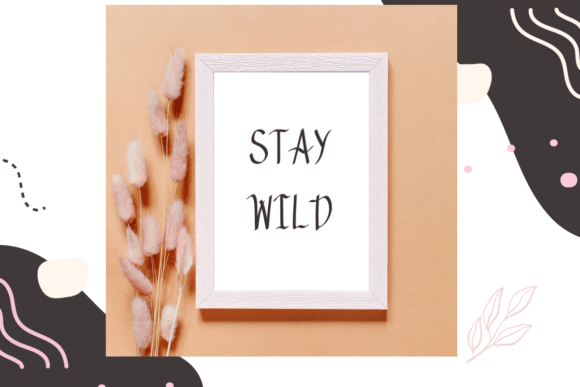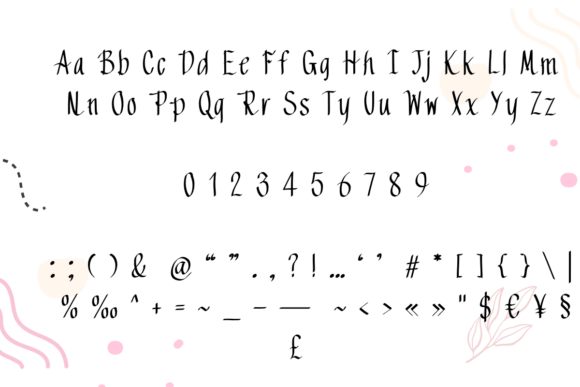
Introduction to Gaceful Pen Font
Have you ever sat down with a cup of coffee, a blank canvas, and a spark of creativity, only to find the perfect font to bring your vision to life? That’s exactly what happened when I discovered the Gaceful Pen Font – a charming and neat handwritten font that’s perfect for all your creative projects.
As a designer, I know how crucial a high-quality font can be to elevate a project from good to great. That’s why I’m excited to share this valuable design resource with you. The Gaceful Pen Font is ideal for social media posts, digital planners, crafting projects, and more, and it works seamlessly with popular design applications like Procreate and Adobe programs.
Key Features of Gaceful Pen Font
- High-quality design resource with a unique, hand-drawn aesthetic, perfect for creative projects.
Honest Review: Gaceful Pen Font
As a designer, I’m always on the lookout for high-quality design resources that can elevate my creative projects. Recently, I had the chance to try out the Gaceful Pen Font, and I must say it’s been a pleasant surprise.
- ✨ The font’s unique, hand-drawn aesthetic is perfect for adding a personal touch to your designs.
- ✨ It’s incredibly versatile and can be used for a wide range of creative projects, from branding to editorial design.
- ⚠️ The font may not be suitable for large-scale, high-impact text, as it can appear a bit delicate.
Overall, I’m impressed with the Gaceful Pen Font. Its unique aesthetic and high-quality design make it an excellent addition to any designer’s toolkit. While it may have some limitations, it’s definitely worth checking out for your next creative project.
The Gaceful Pen Font is perfect for:
- Creating custom graphics for social media
- Designing flyers and brochures
- Adding a touch of elegance to your wedding invitations